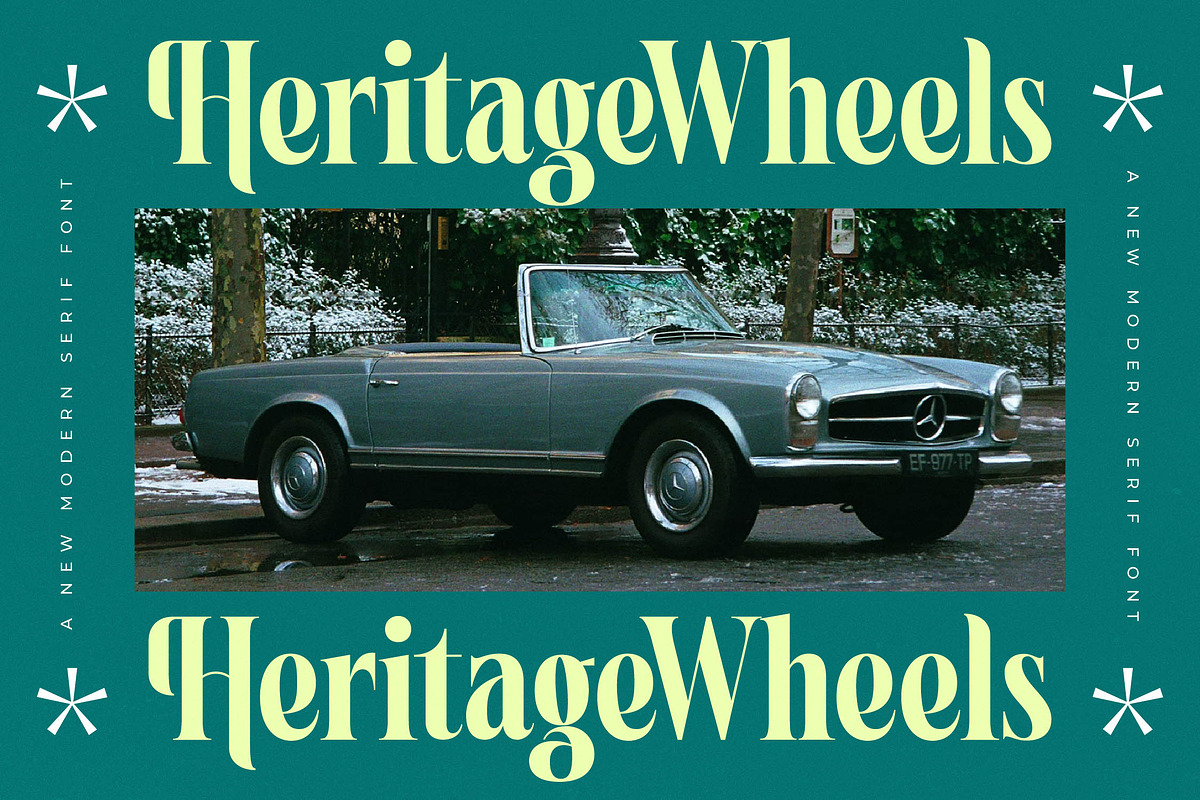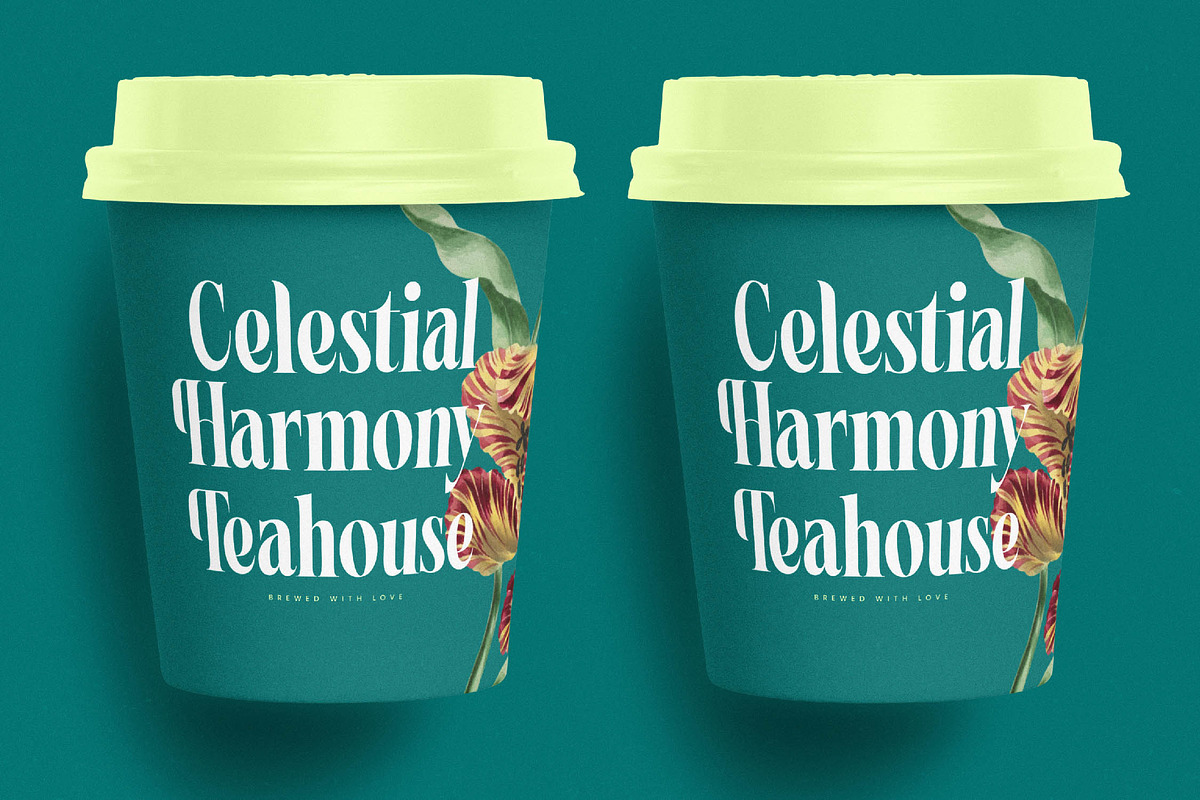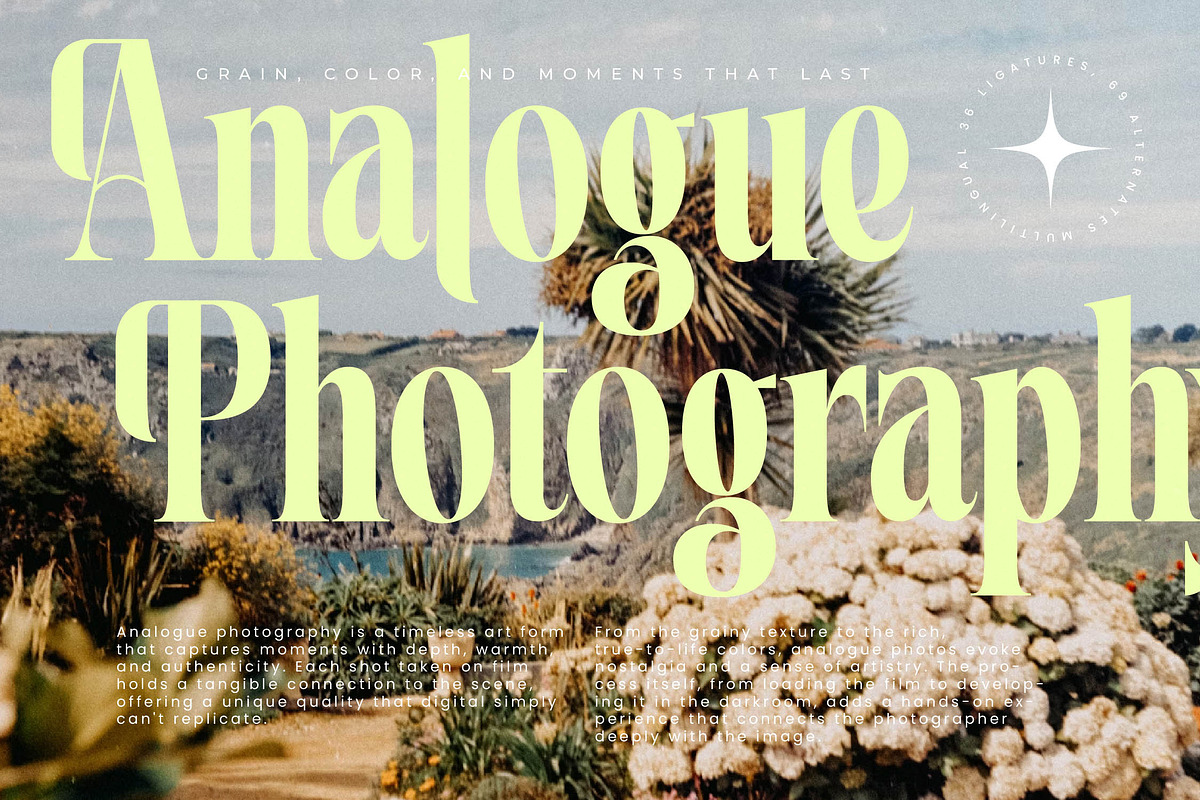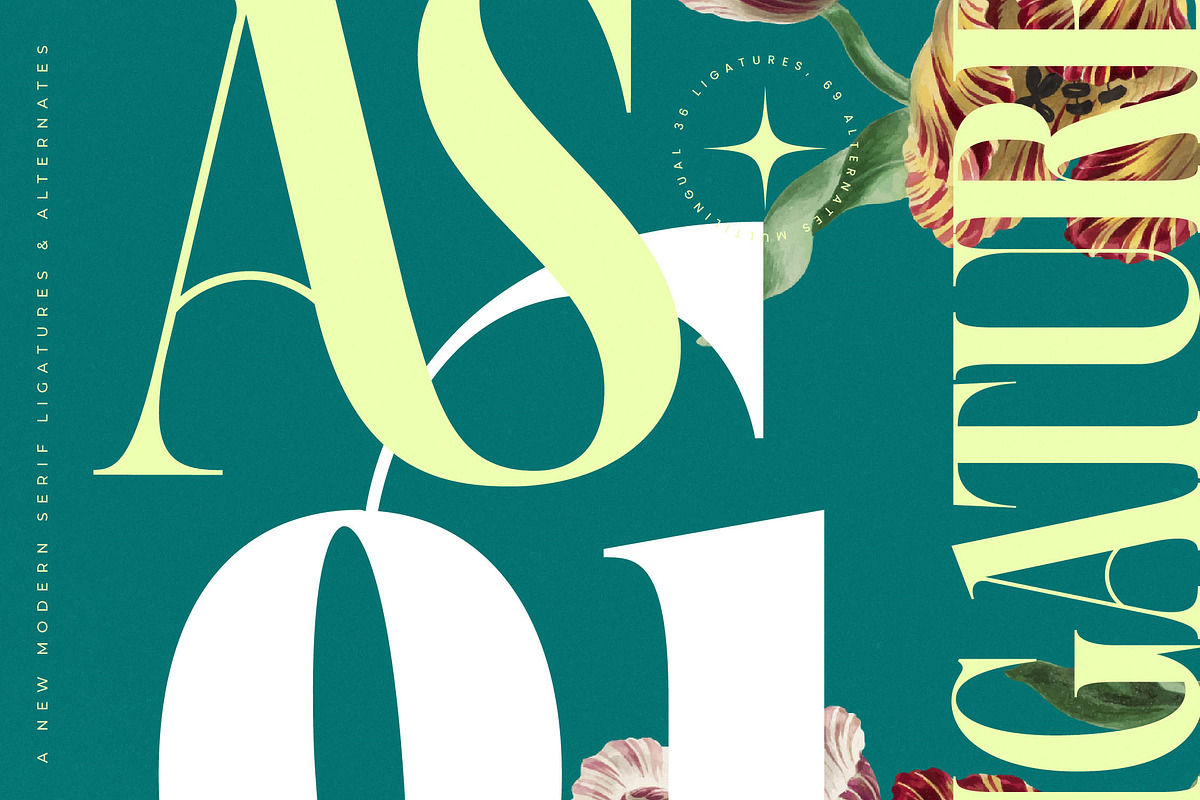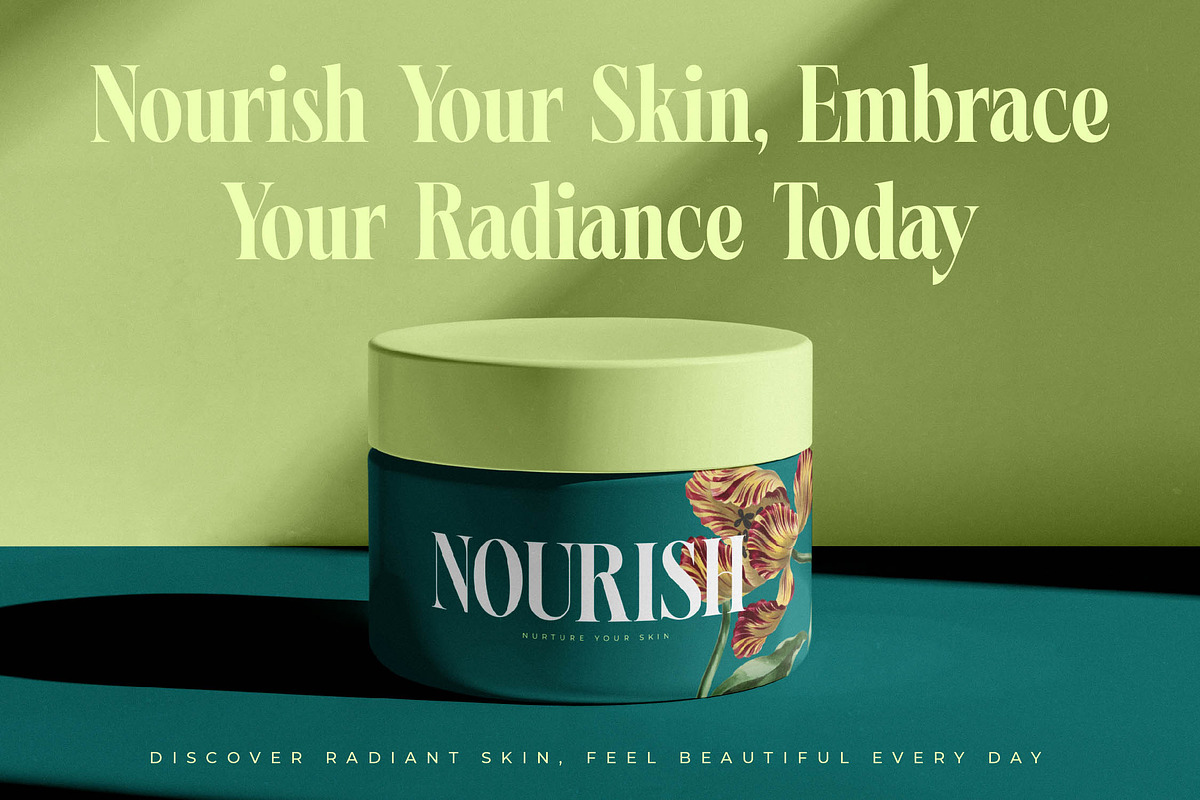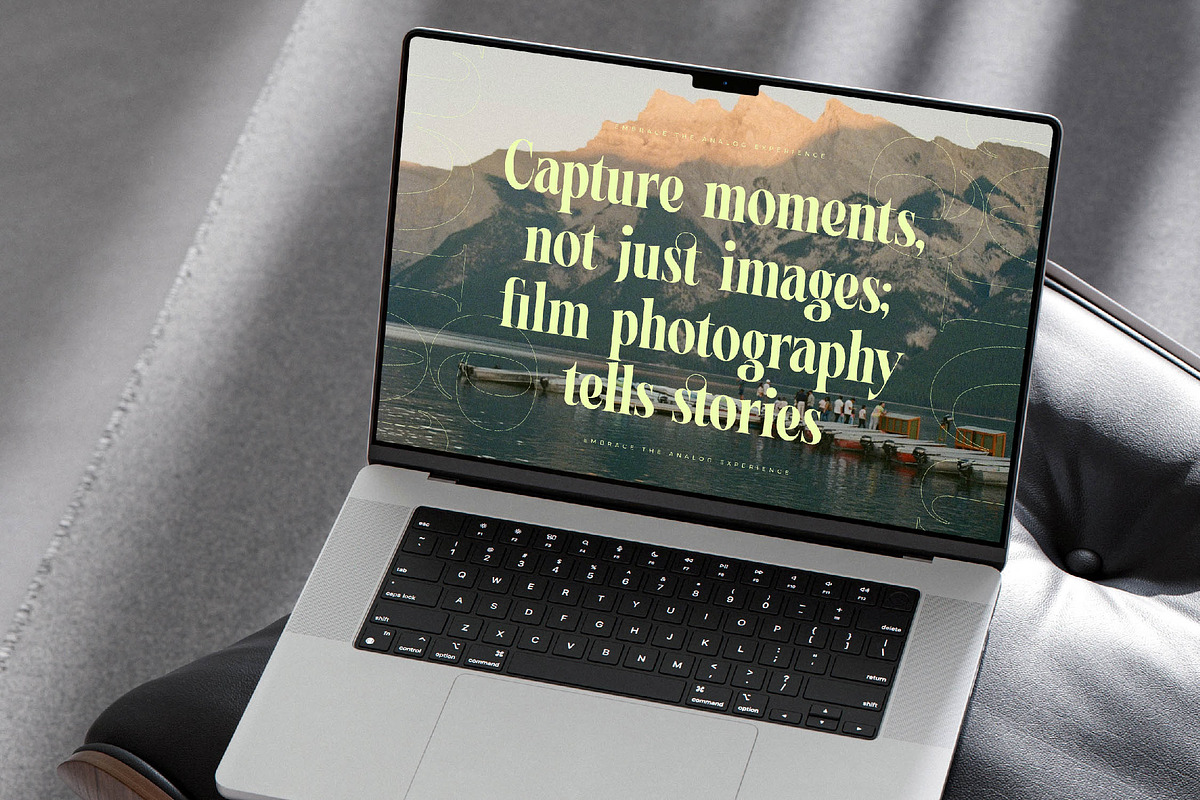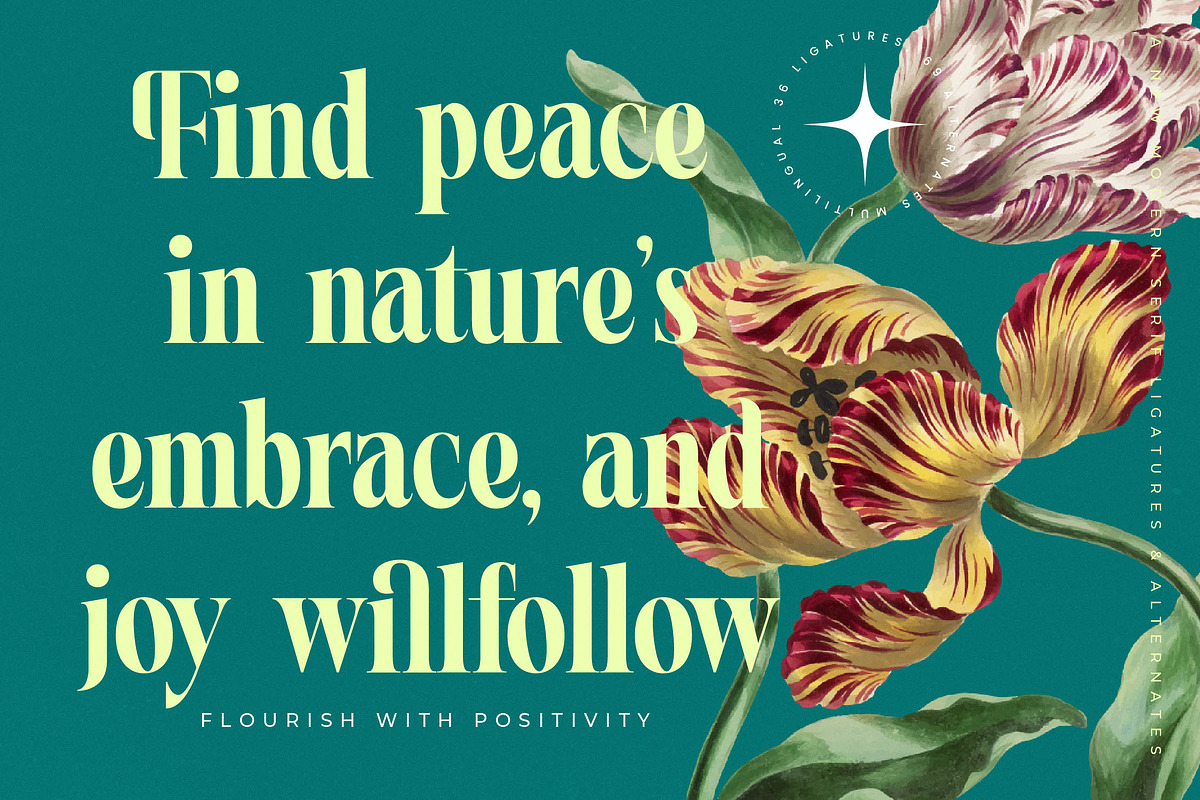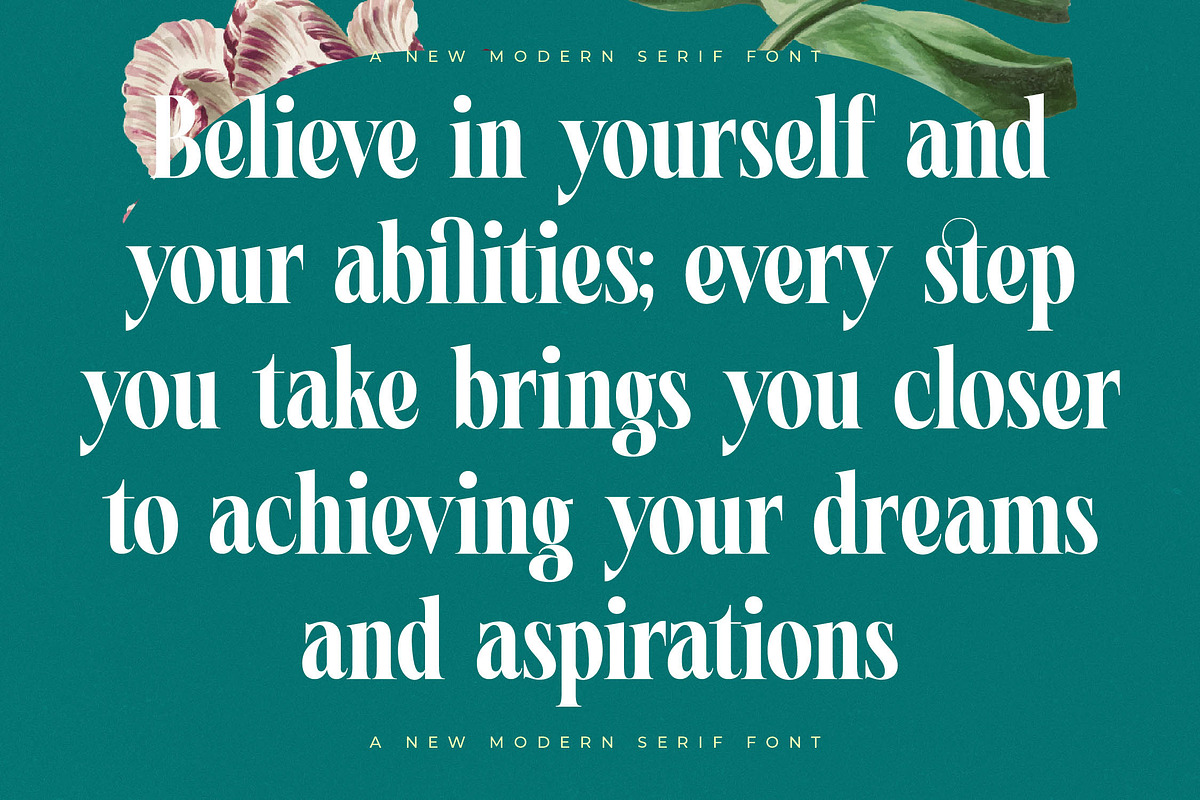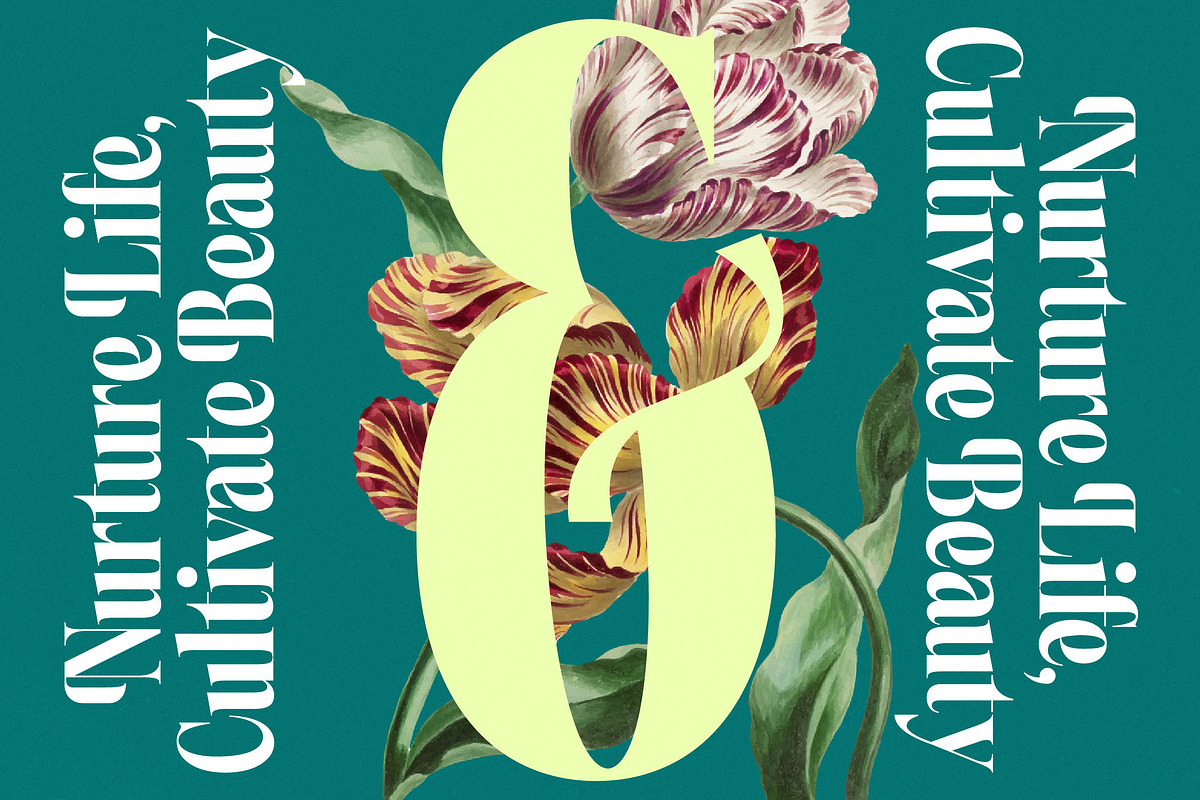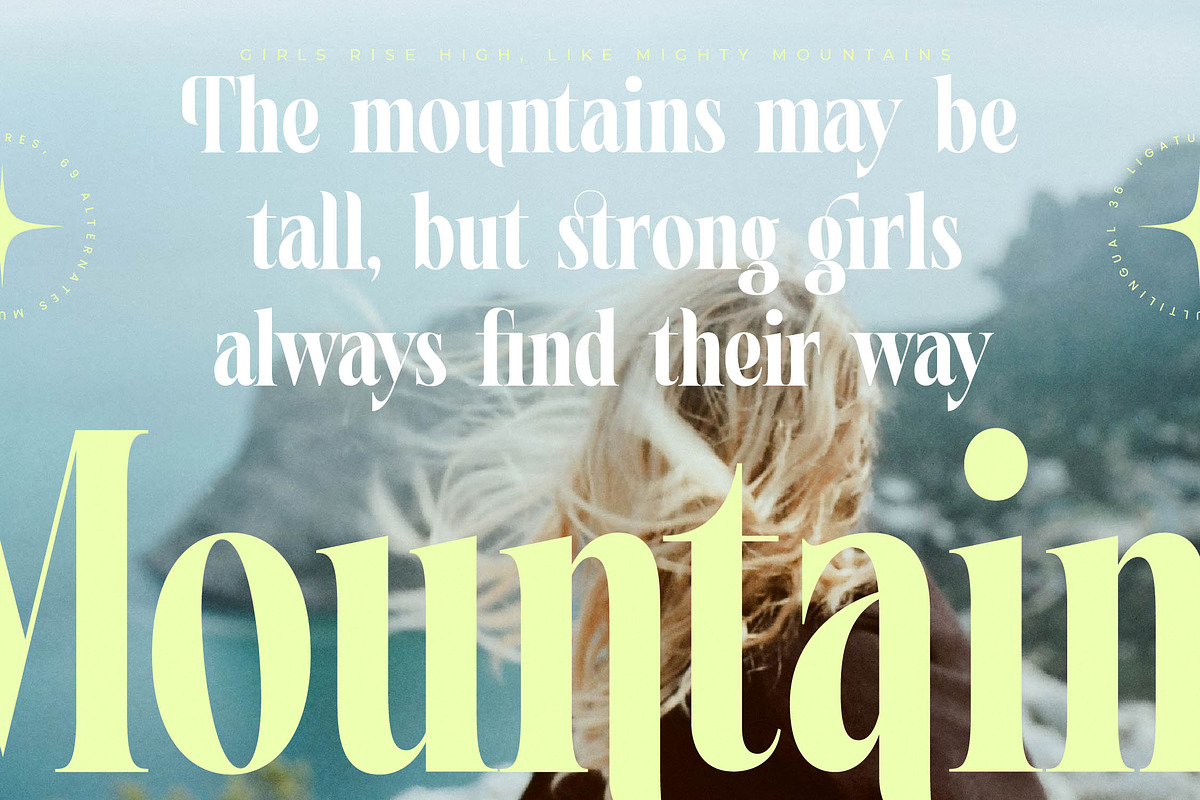
Magiction Modern Serif Display
Elevate your design projects with the spellbinding elegance of Magiction, a font that transforms simple text into a masterpiece of visual storytelling. This modern serif is crafted for those who seek to leave a lasting impression through refined and artistic typography.
Drawing inspiration from the delicate curves of botanical illustrations and the timeless allure of classic vintage posters, this typeface captures a sense of wonder and enchantment. Its atmosphere is one of organic grace blended with sharp, contemporary precision, making every character feel like a piece of art.
Boasting a modern serif display aesthetic, this typeface exudes luxury typography through its high-contrast serif strokes and fluid lines. It is designed specifically for editorial font layouts that require a strong branding impact, ensuring your message is delivered with both clarity and extreme sophistication.
Perfectly aligned with the current modern serif trend, this font stands out among editorial display fonts for its unique and expressive details. Its character-driven typography allows designers to create layouts that feel fresh yet deeply rooted in high-end design traditions favored by global creative agencies.
This versatile typeface is the ultimate choice for high-end logo design, cohesive branding systems, and sophisticated editorial spreads. Whether you are working on premium packaging, romantic wedding stationery, or avant-garde fashion campaigns, its presence elevates the entire visual identity of your project.
The package is packed with professional features including 36 unique ligatures and 68 stunning alternates and decorative swashes that provide endless creative possibilities. It also includes comprehensive multilingual support and a vast library of international characters, ensuring seamless use across global markets.
- Ligature 36 Alternate 69